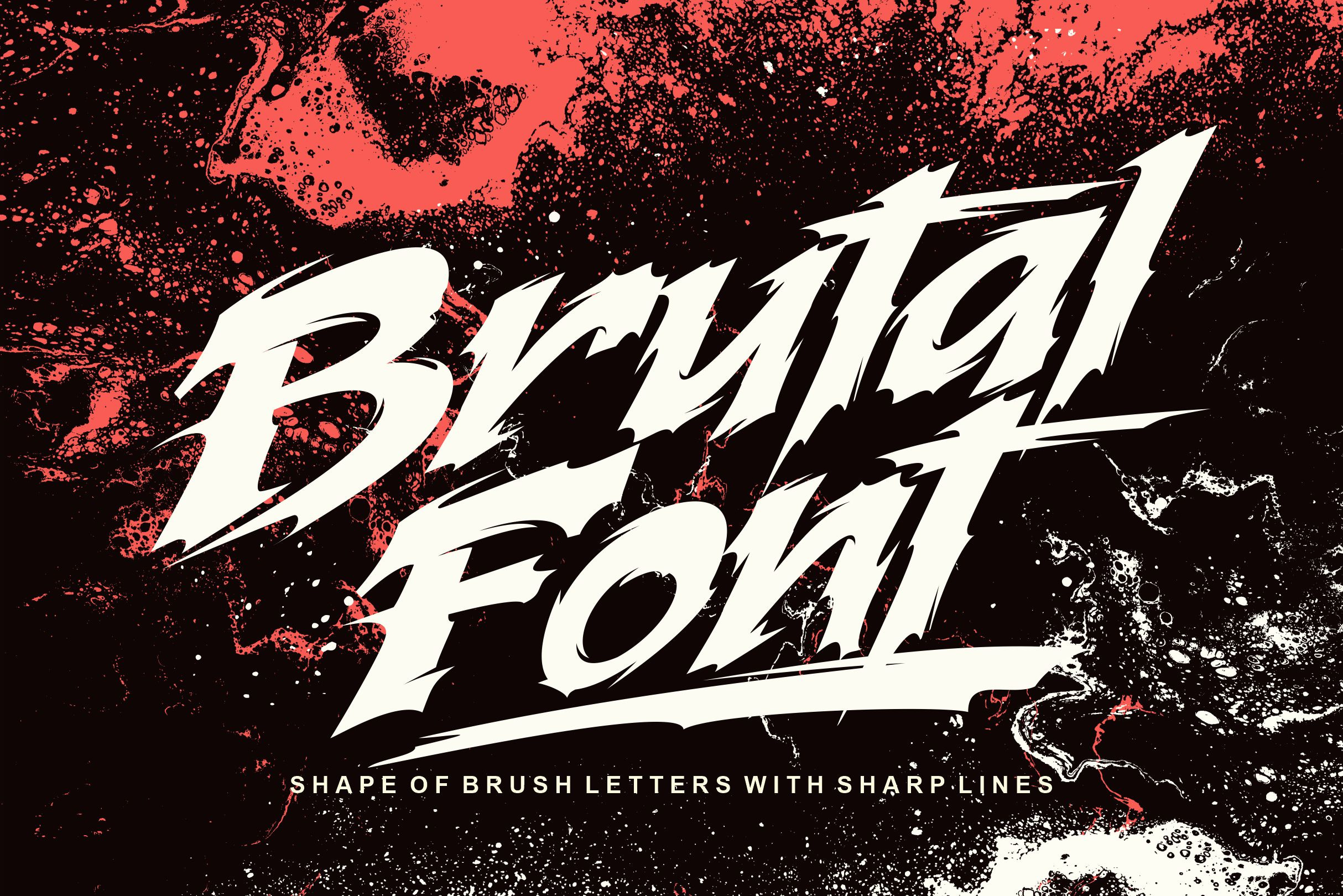
Brutal font
Brutal Font consists form letters brush with sharp lines that give the impression of cruel
Brutal Font very suitable for the theme of horror, sword action, action game covers, logos & branding, product design, labels and so on.